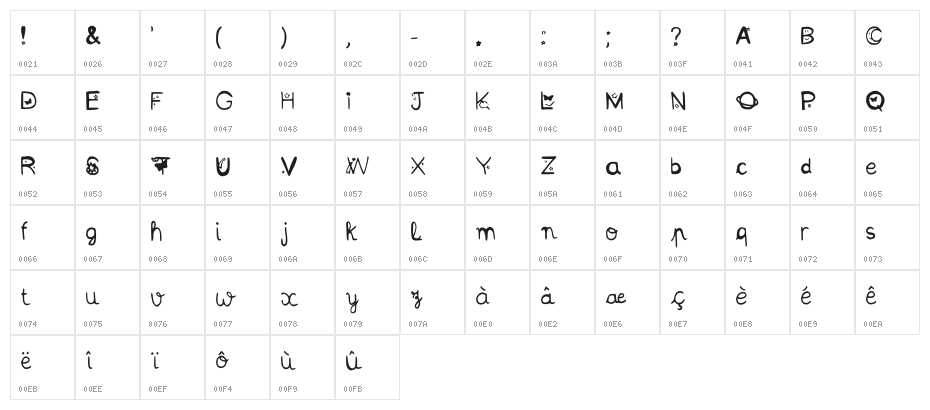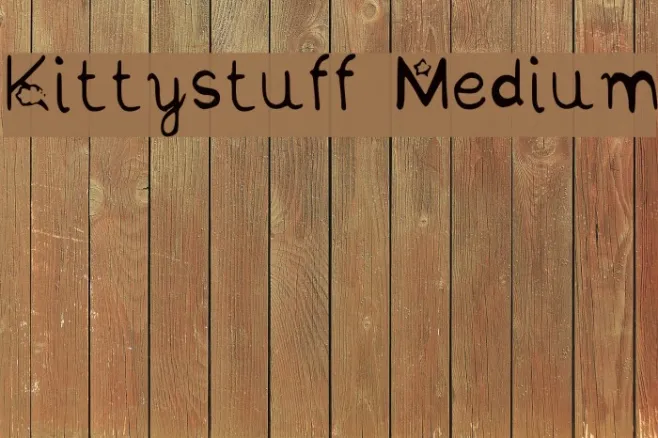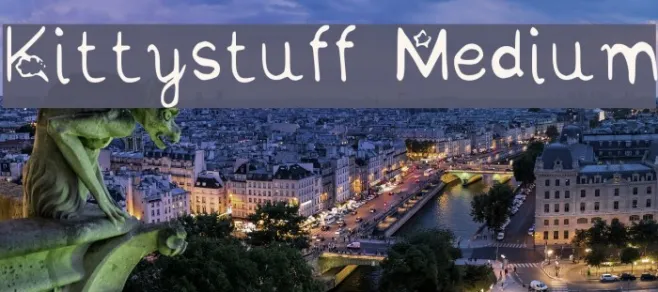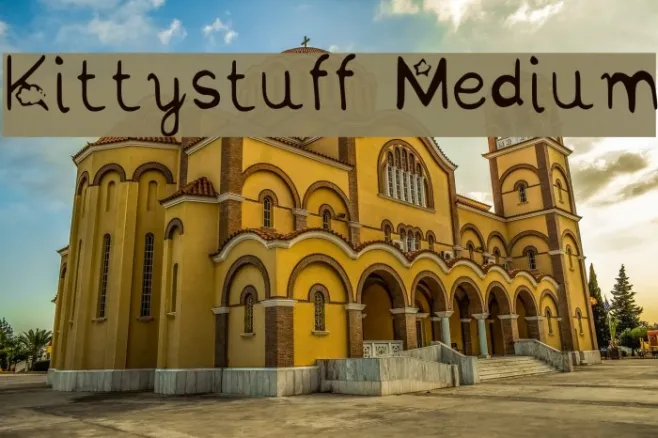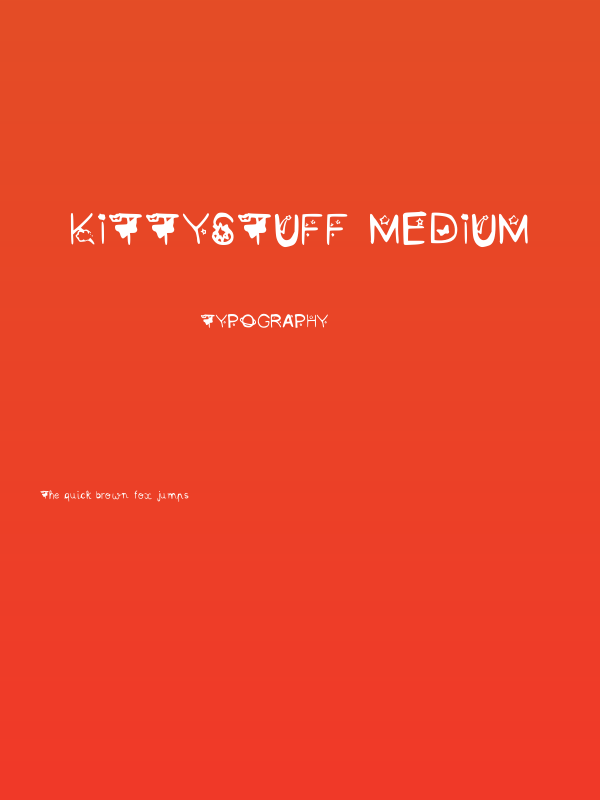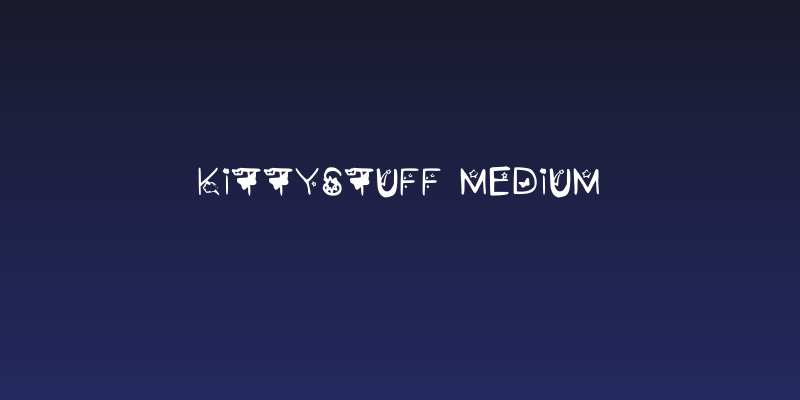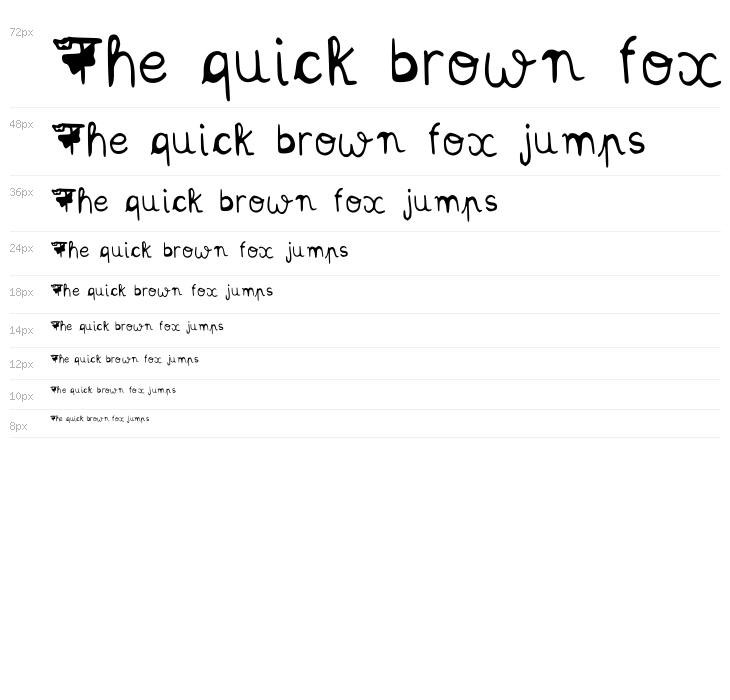
Kittystuff Medium Font
Kittystuff Medium Description
This playful and whimsical font features a unique blend of decorative elements and a casual handwritten style. Each letter is adorned with charming details like stars, hearts, and other playful motifs, giving it a lively and fun appearance. The uppercase letters are bold and expressive, while the lowercase letters maintain a more relaxed and flowing form. The numbers and special characters continue the theme with similar decorative touches, making the font ideal for creative and informal projects. Its distinctive style is perfect for adding a touch of personality and fun to any design.
| Overall Style | Whimsical, Playful |
| Proposed Projects | Ideal for children's books, playful invitations, greeting cards, and creative branding. |